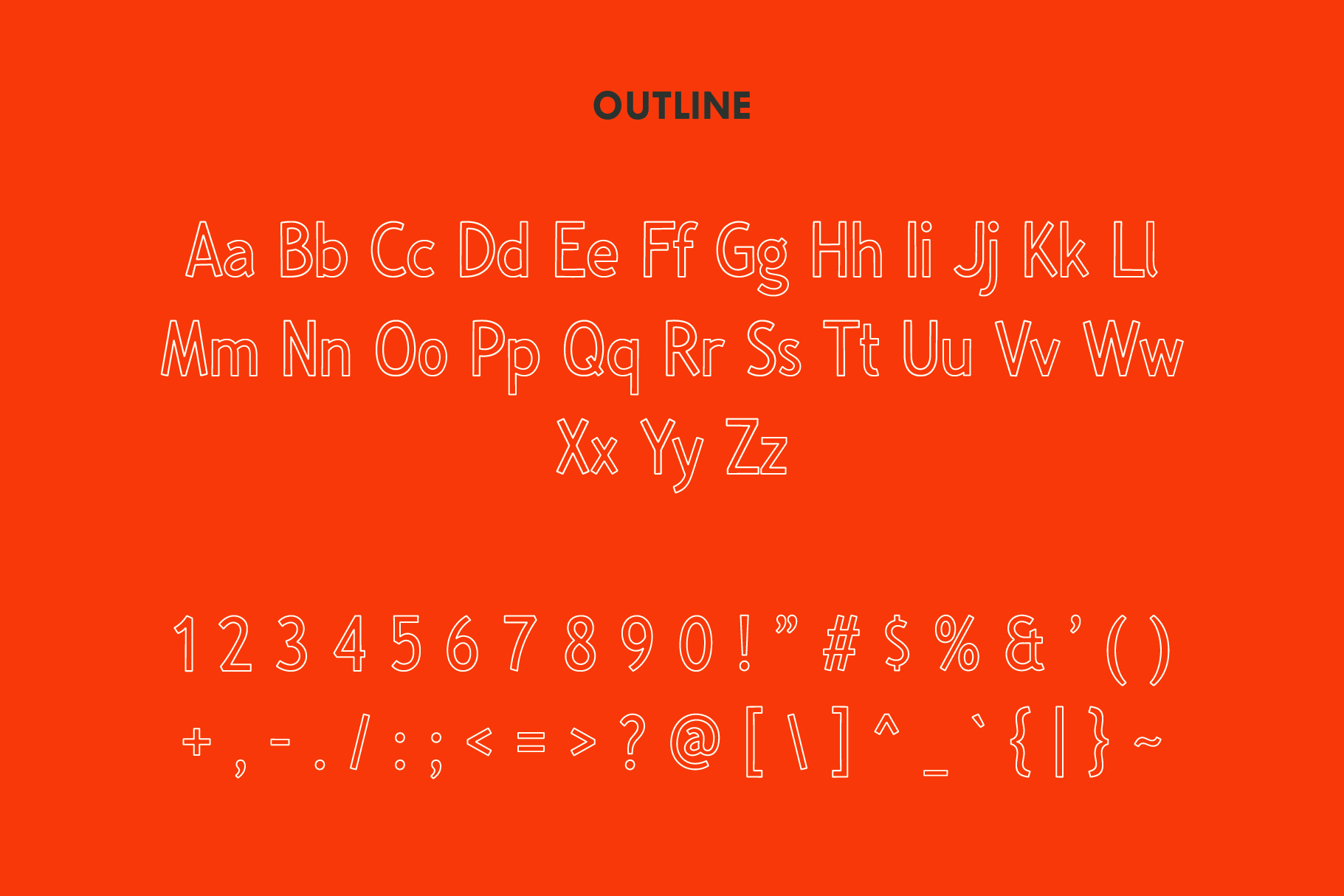
Tired of using the same old boring fonts? Want to add some edge and personality to your designs? Look no further than WALKERZ, the handcrafted sans serif font that’s about to revolutionize your design game!
This epic font package includes uppercase and lowercase letters, numbers, basic punctuation marks, and an outline version. With these features, you have everything you need to create standout designs.